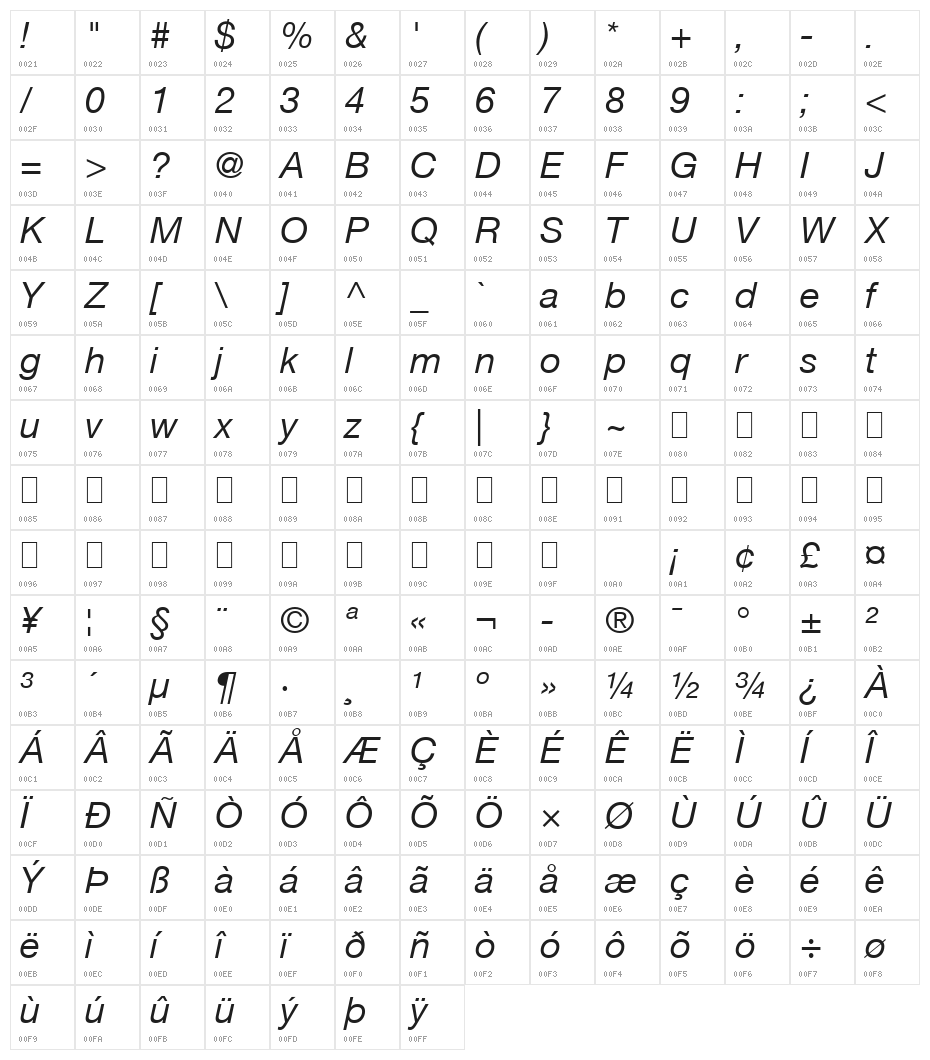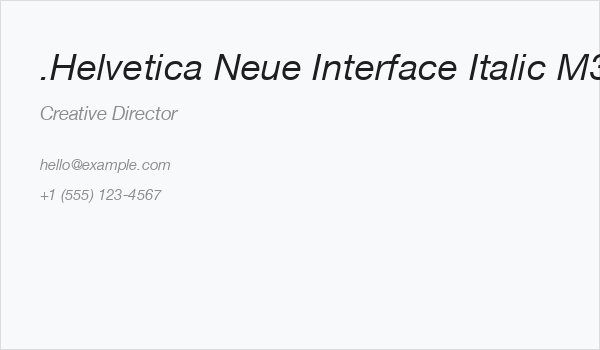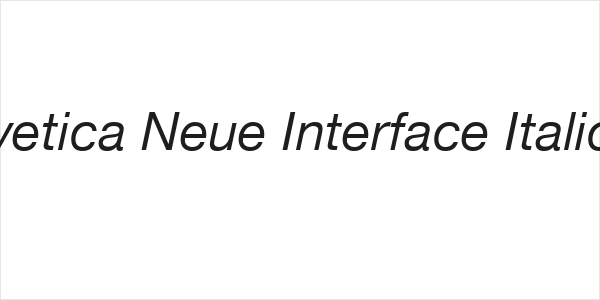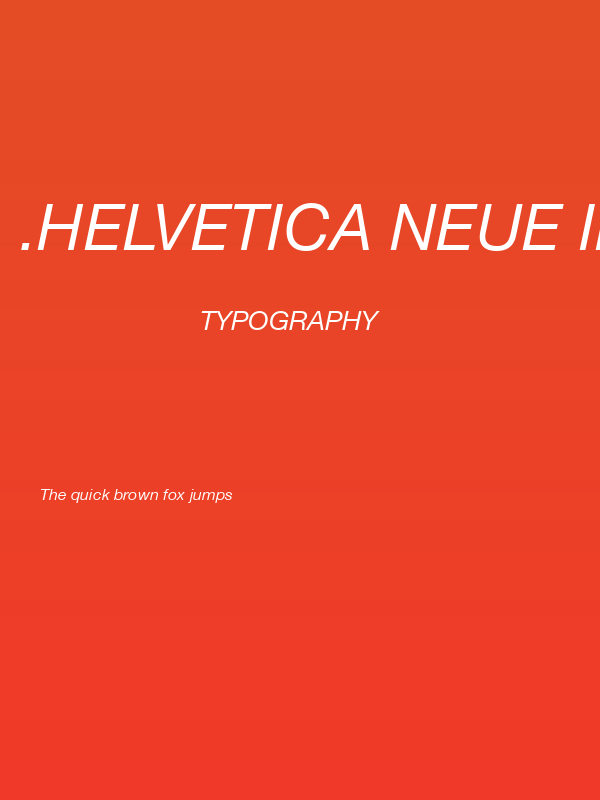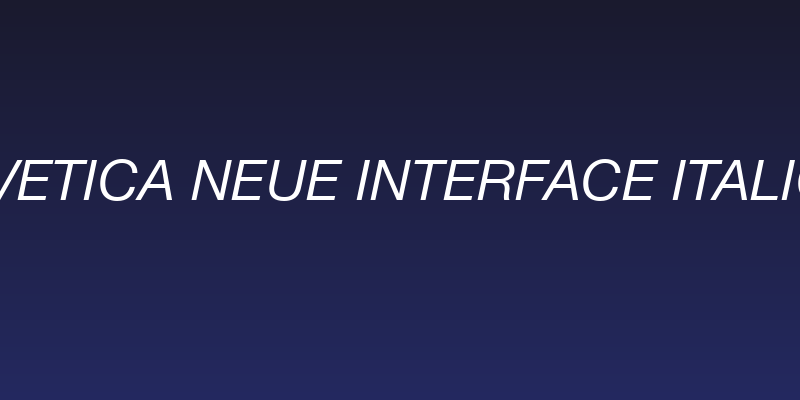
.Helvetica Neue Interface Italic M3 Font
.Helvetica Neue Interface Italic M3 Description
This font features a clean and modern design with a slightly slanted italic style, giving it a dynamic and contemporary appearance. The characters are well-proportioned, with smooth curves and straight lines that create a sense of balance and harmony. The font maintains a consistent stroke width throughout, contributing to its sleek and professional look. It is highly legible, making it suitable for a variety of applications, from digital interfaces to print media. The spacing between characters is normal, ensuring readability without appearing cramped or overly spaced.
| Proposed Projects | Ideal for user interfaces, digital content, branding, and editorial design. |